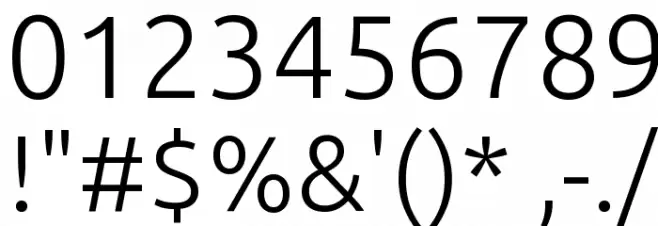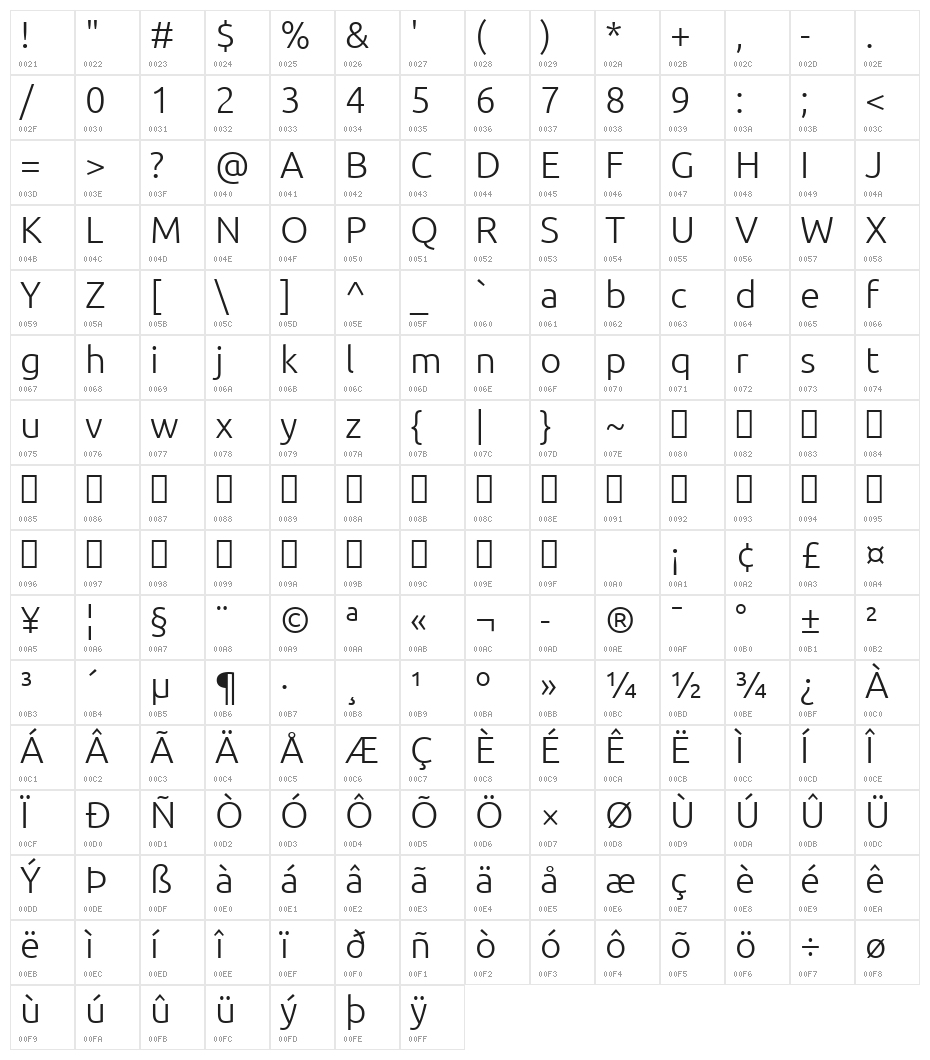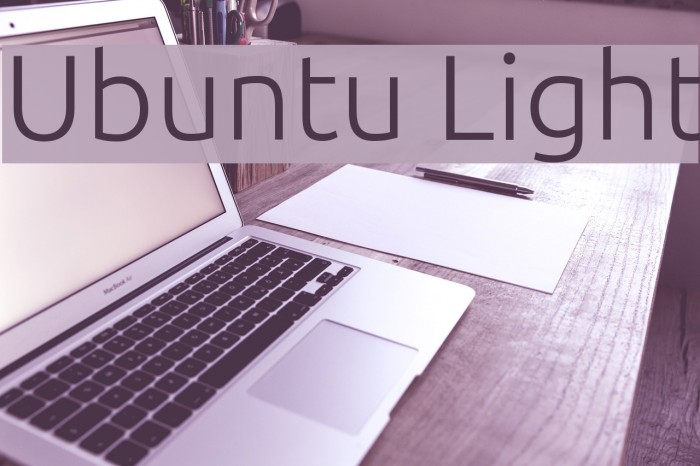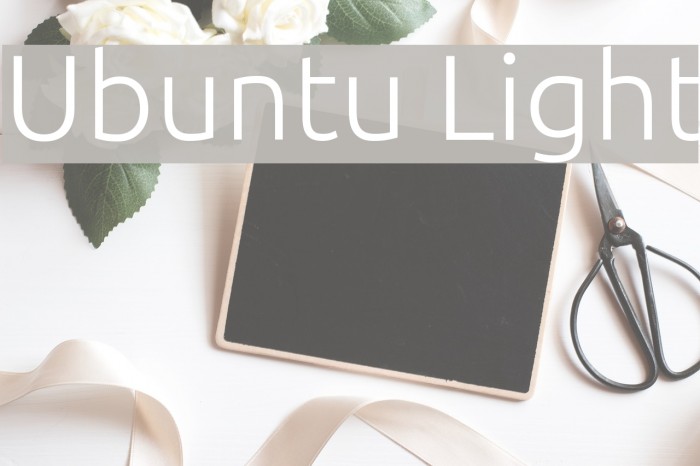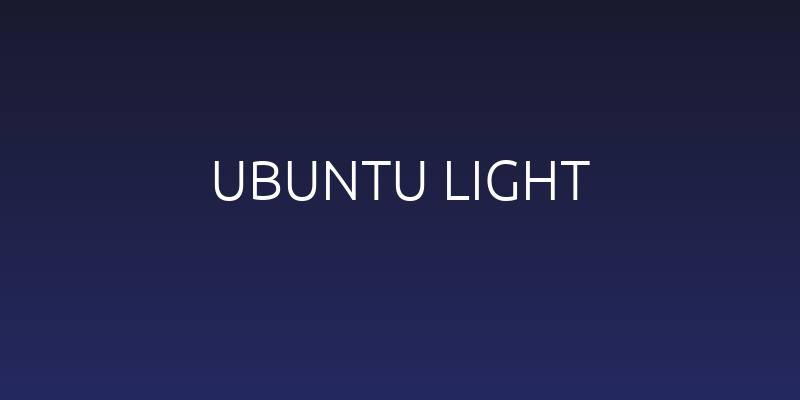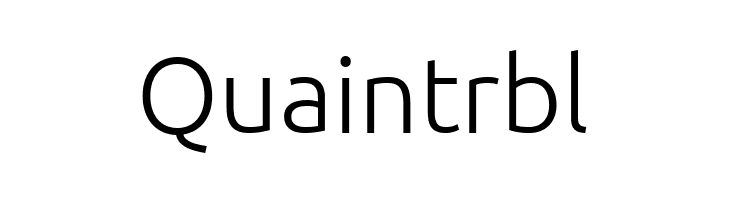
Ubuntu Light Font
Ubuntu Light Description
This font features a clean and modern sans-serif design with a light weight, making it ideal for a wide range of applications. The characters are well-proportioned with a slightly rounded appearance, contributing to its friendly and approachable look. The uppercase letters are bold and confident, while the lowercase letters maintain a consistent and harmonious flow. The numerals are clear and easy to read, and the special characters are designed to complement the overall style. The font's simplicity and elegance make it versatile for both digital and print media.
| Proposed Projects | Ideal for web design, user interfaces, corporate branding, and editorial content. |